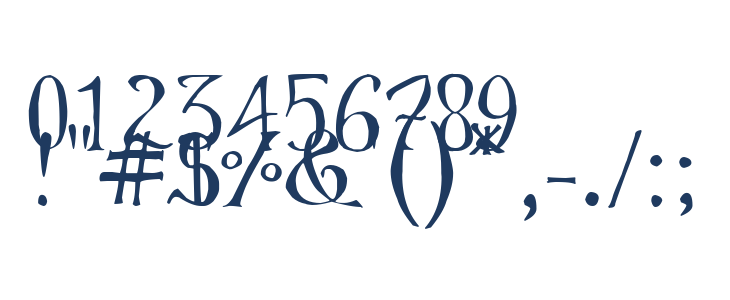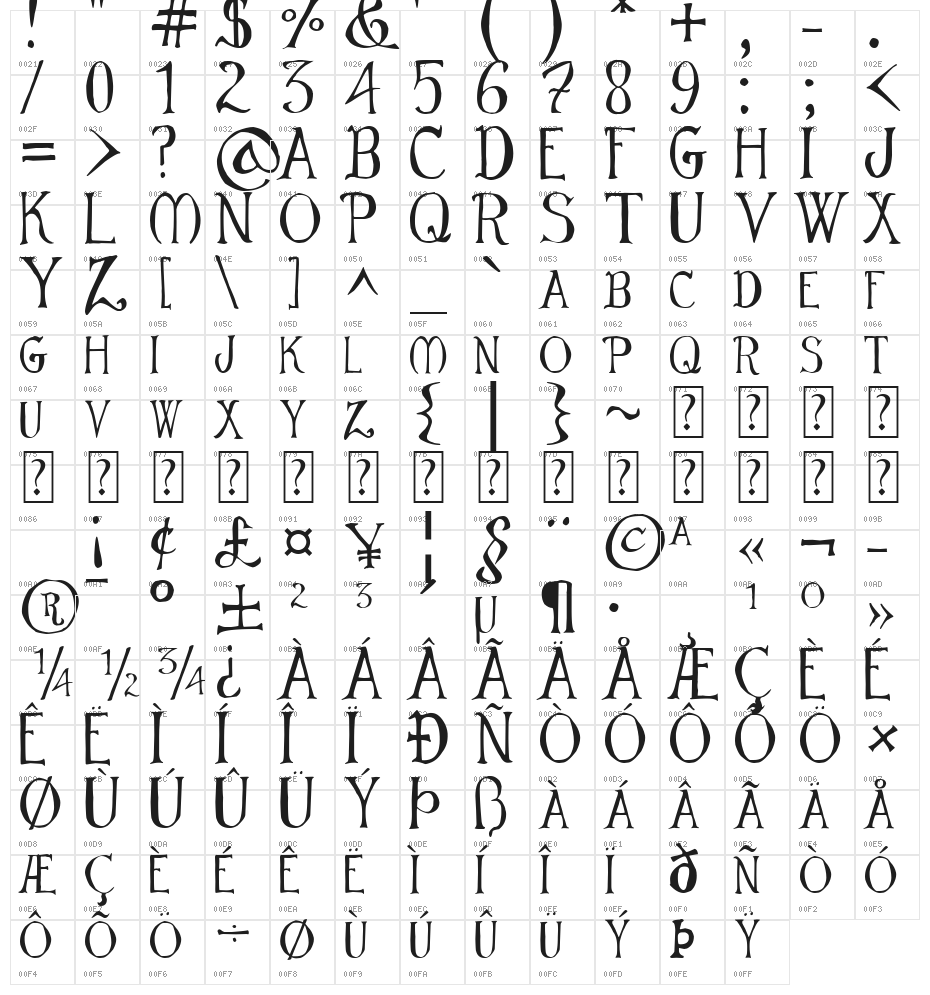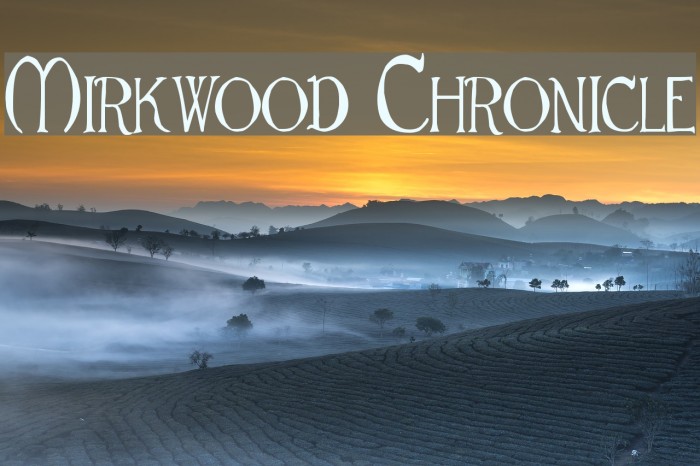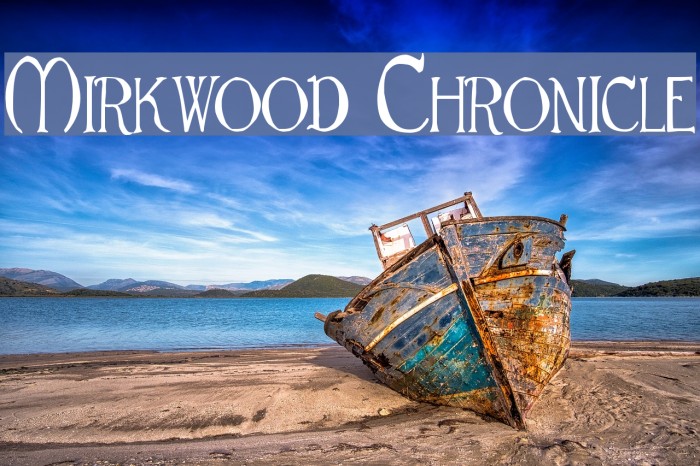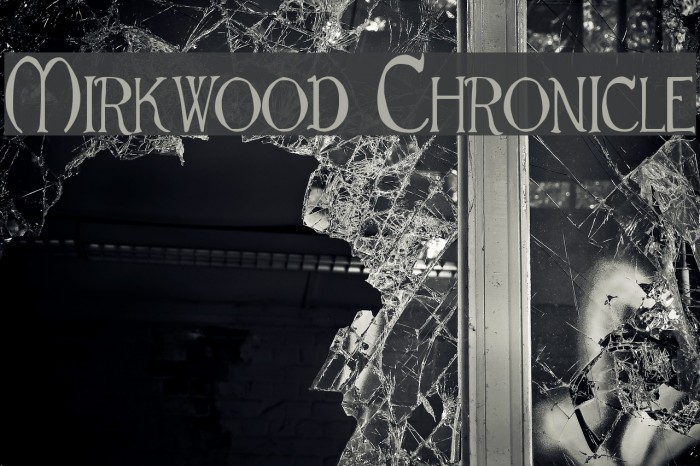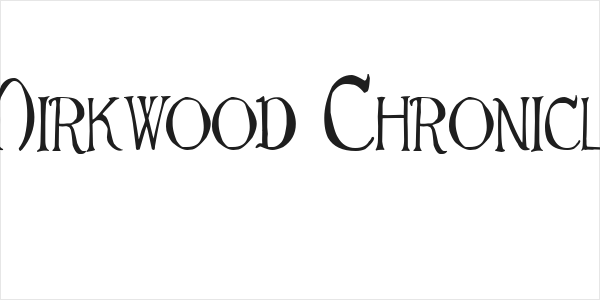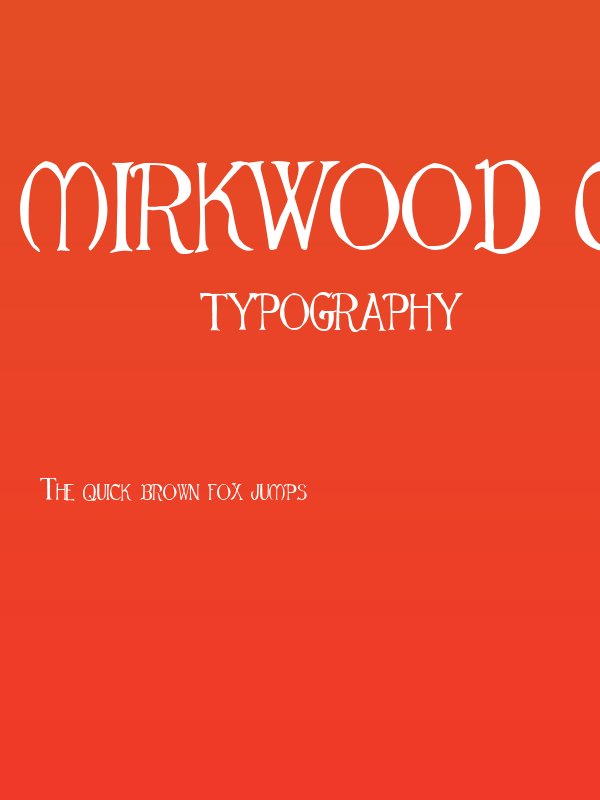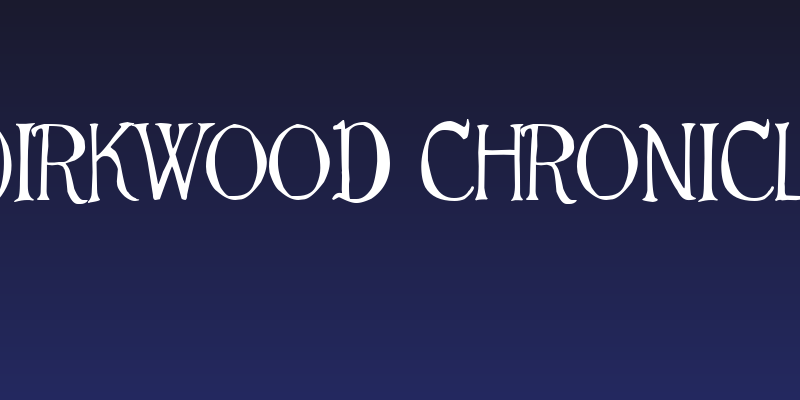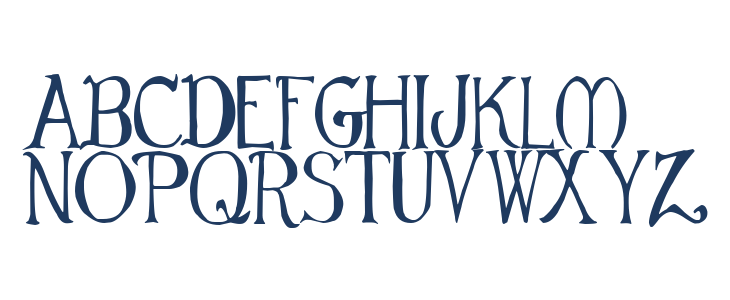
Mirkwood Chronicle Font
Mirkwood Chronicle Description
This font features a whimsical and decorative style, reminiscent of fantasy and medieval themes. The characters are uniquely crafted with elegant curves and pointed serifs, giving them a mystical appearance. The uppercase letters are bold and prominent, while the lowercase letters maintain a consistent style with slightly more delicate strokes. Numbers and special characters are designed to match the overall aesthetic, ensuring a cohesive look across all text. The font's distinctive flair makes it ideal for projects that require a touch of fantasy or historical charm.
| Overall Style | Fantasy, Medieval |
| Use Case | Headlines, Logos, Decorative text |
| Proposed Projects | Ideal for fantasy book covers, themed event invitations, game titles, and decorative posters. |